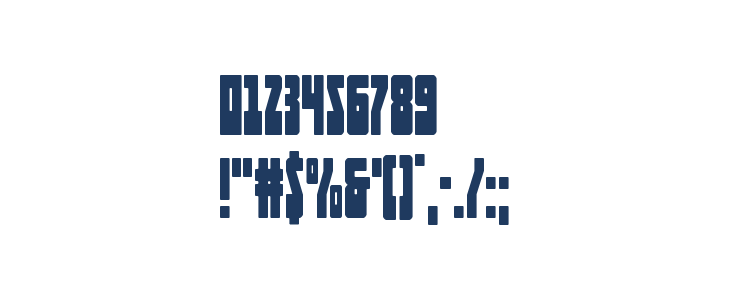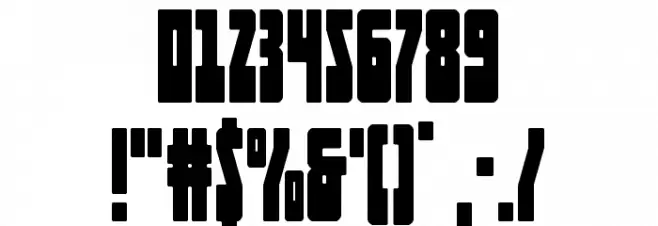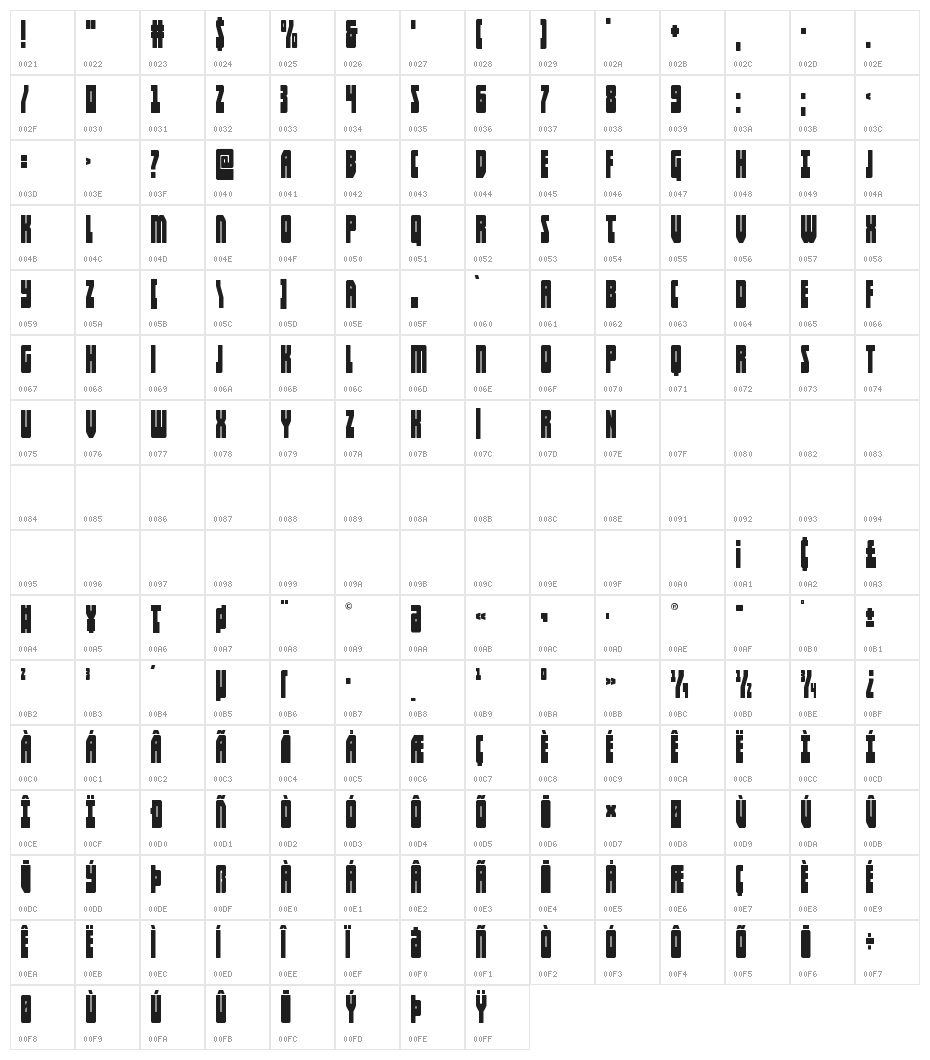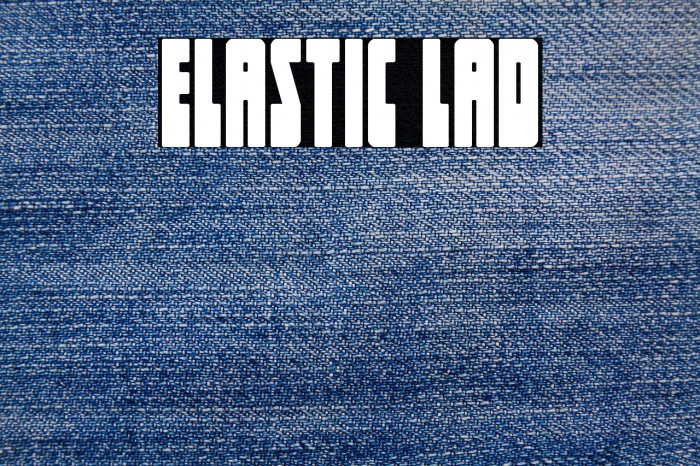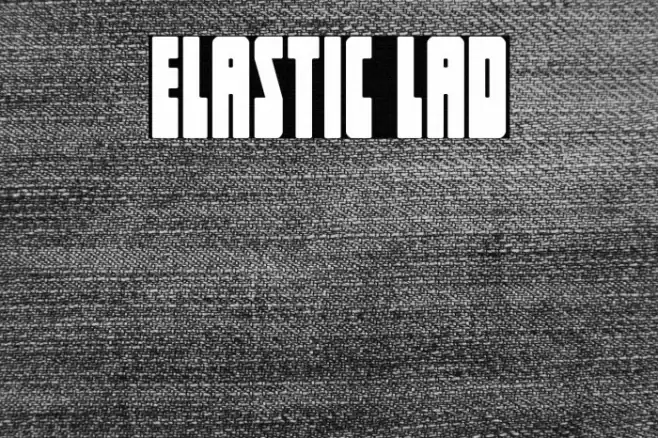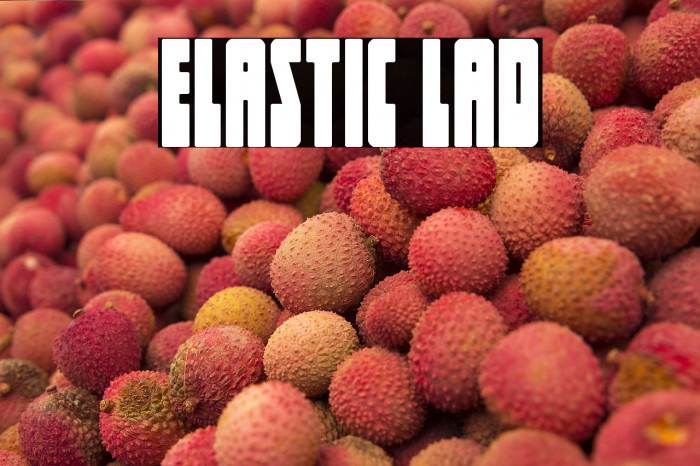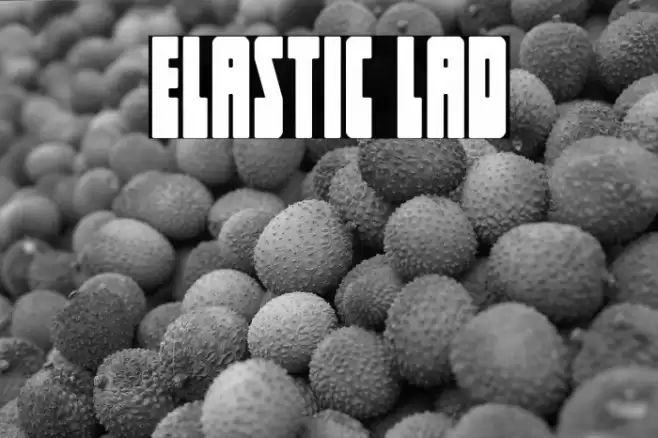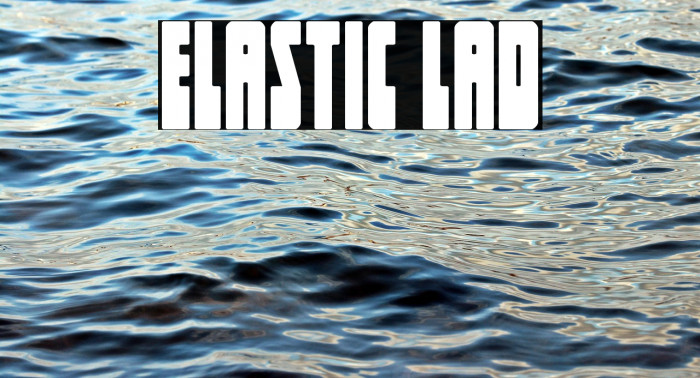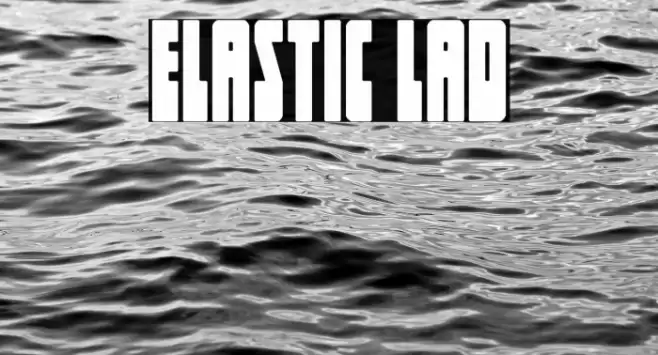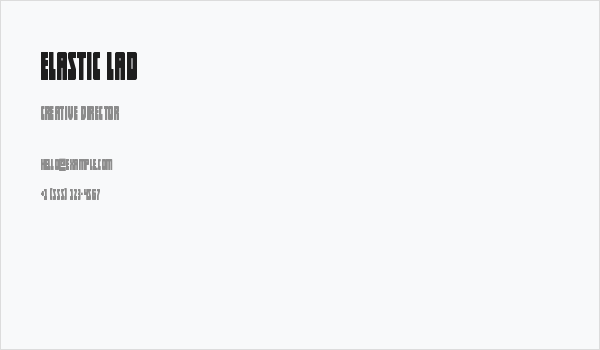
Elastic Lad Font
Elastic Lad Description
This font features a bold, geometric design with thick, block-like characters that convey a strong and impactful presence. The uppercase letters are uniform in height, creating a cohesive and structured appearance. The font's design is reminiscent of industrial or futuristic styles, with a focus on symmetry and balance. The characters are tightly spaced, enhancing the boldness and making it suitable for attention-grabbing headlines or titles. The numbers and special characters maintain the same bold and structured aesthetic, ensuring consistency across all text elements.
Proposed ProjectsIdeal for posters, logos, and branding materials that require a bold and modern look.